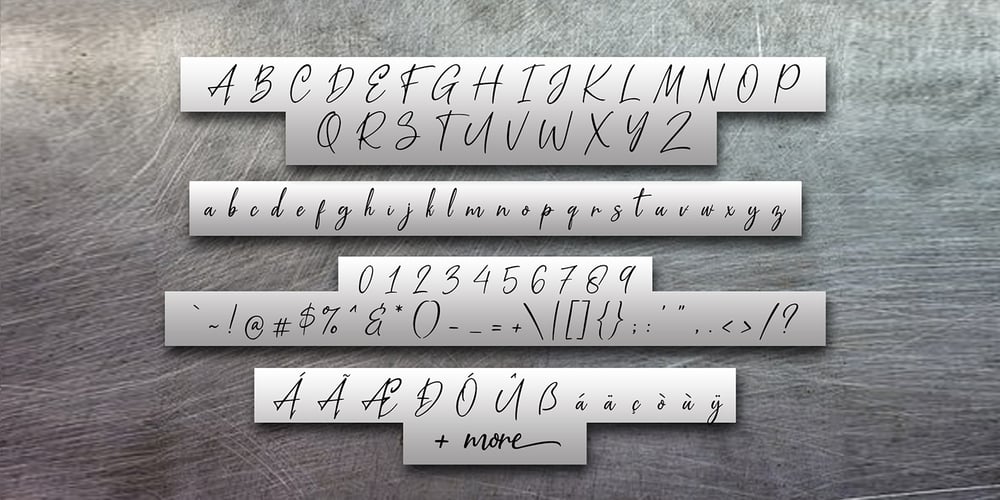
Metal Pen Font Family was designed by Syaf Rizal and published by Khurasan. Metal Pen contains 1 styles and family package options. Introducing the Metal Pen script, a font that is very fresh and unique, handmade style. Metal Pen script is perfectly suited for logos, signatures, stationery, posters, apparel, branding, wedding invitations, cards, taglines, layout designs, and much more.